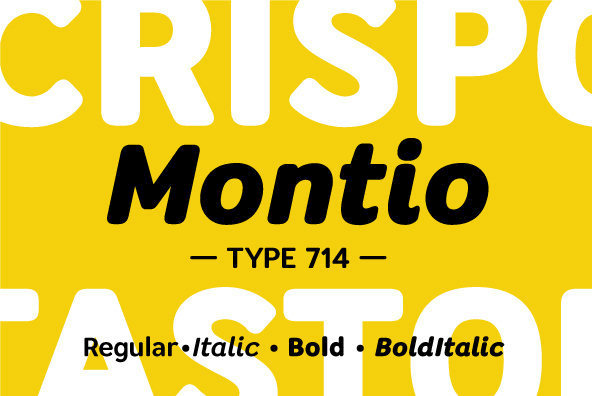
Montio Font
Montio Font is perfect for mountain adventure branding, outdoor expedition companies, alpine tourism marketing, wilderness retreat communications, climbing gear packaging, mountaineering school materials, summit celebration campaigns, and rugged advertising projects. This elevated typeface works magnificently in both digital applications and print media where mountain majesty and alpine adventure are fundamental design requirements.
What makes Montio Font so exciting is its inspiring interpretation of mountain grandeur and alpine achievement through bold letterforms that seem carved from the same enduring stone and forged by the same challenging elements that define the world's most majestic peaks. The font features robust characters with mountain-like proportions, alpine curves, and summit-tested details that communicate strength, perseverance, and the transformative power of challenging oneself against nature's most demanding environments. Its adventurous personality and mountaineering heritage make it ideal for outdoor brands seeking to inspire alpine aspirations while appealing to adventurers who seek the profound satisfaction of conquering peaks and exploring untamed wilderness.
The Montio Font family includes multiple weight variations with different elevation intensities, along with rugged alternates and alpine ornamental elements. Each style maintains the typeface's mountainous character while offering comprehensive character sets including altitude numerals, expedition-focused punctuation marks, and special symbols designed to enhance outdoor communications and alpine branding efforts across various summit contexts.
This remarkable typeface represents the perfect fusion of mountain inspiration and contemporary design functionality for outdoor adventure and tourism industries. Whether you're developing mountaineering company identities, creating alpine resort materials, or designing wilderness expedition campaigns, Montio Font Free Download provides the mountain authenticity and versatility needed to inspire peak-seeking audiences. The font's alpine appeal makes it particularly effective for climbing gear companies, mountain resorts, outdoor adventure guides, and businesses celebrating the challenge and reward of mountain exploration and alpine achievement.
The carefully crafted mountainous details and optimized alpine performance in Montio Font ensure both wilderness authenticity and clear communication across all outdoor applications. Its elevated presence makes it perfect for mountain branding, alpine marketing materials, and summit communications where its full mountainous character can create lasting inspiration and connections with audiences seeking the challenge, beauty, and life-changing perspective that comes from standing atop the world's most magnificent peaks.